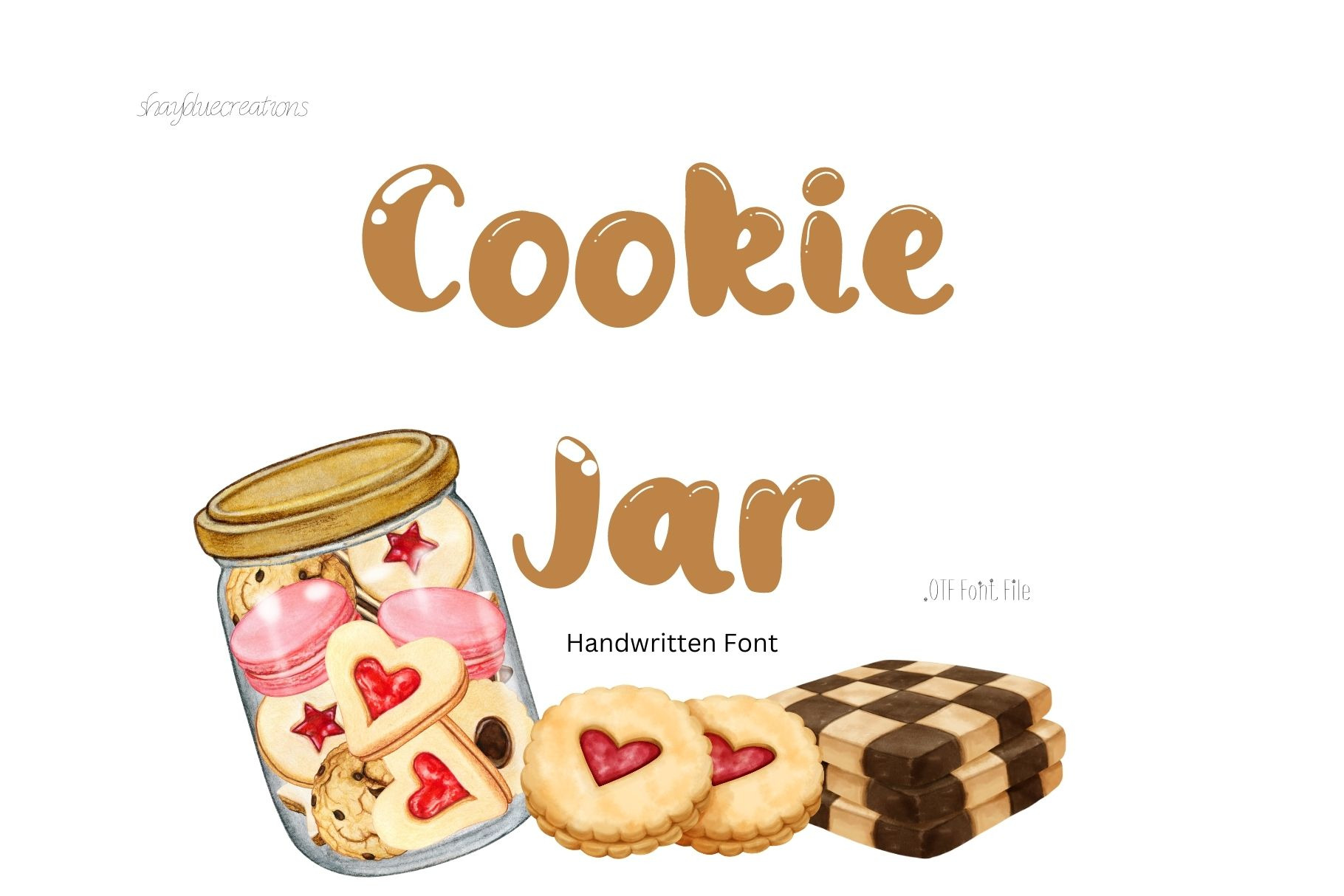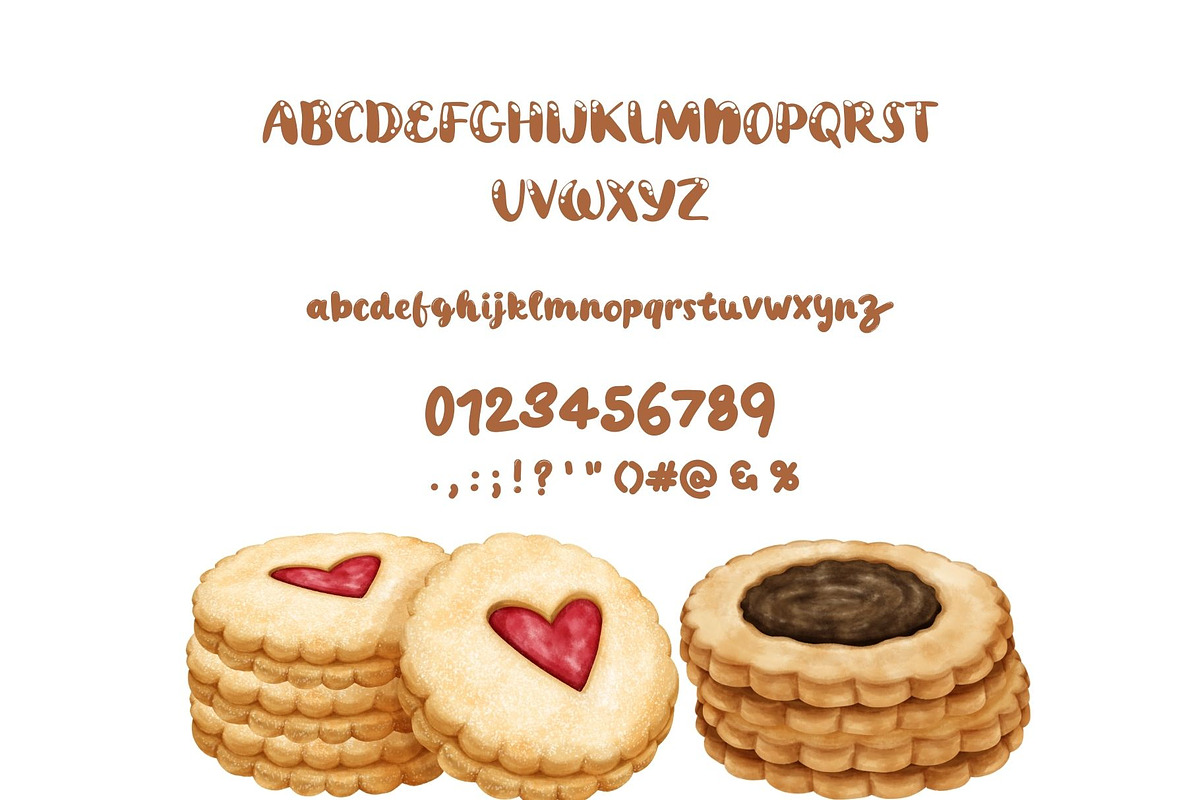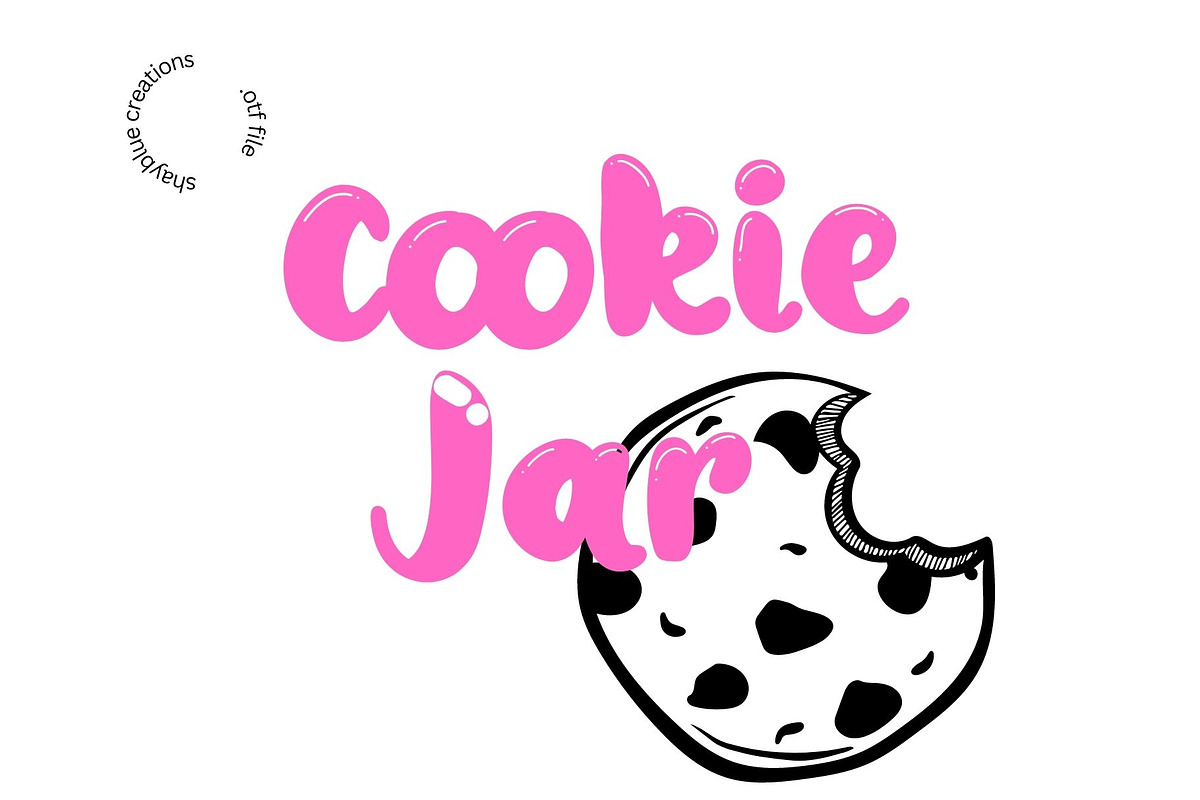
Cookie Jar Display Font Handwritten
Cookie Jar is a hand written display font that will make your designs look sweet and yummy. It features rounded curvy letters, bold strokes, cute and playful shapes. It comes in an .otf file format that is compatible with most applications and devices. You can use Cookie Jar for a variety of projects, such as logos, posters, invitations, labels, stickers, and more. It is also a great font for cricut, laser or cut machine projects, as it has smooth edges and clear outlines. Cookie Jar is a fun and friendly font that will add some charm and whimsy to your creations.